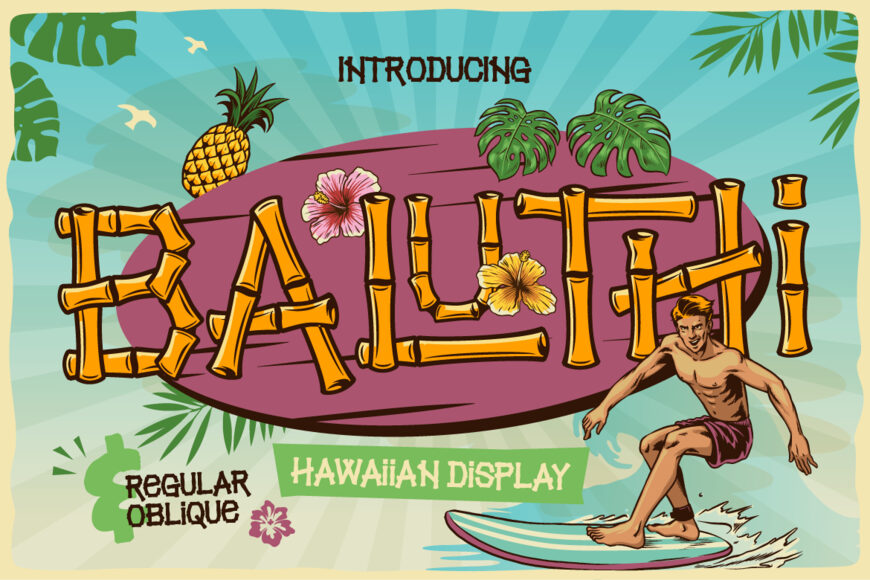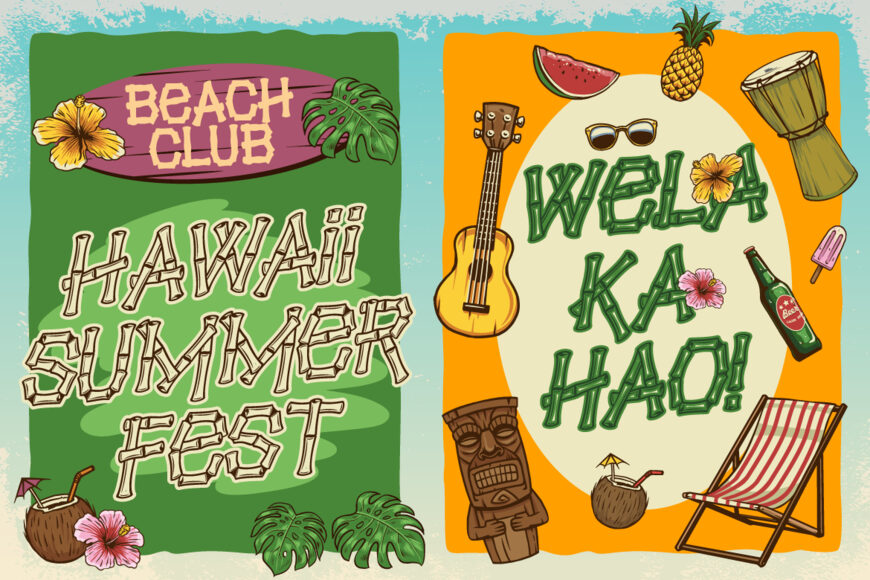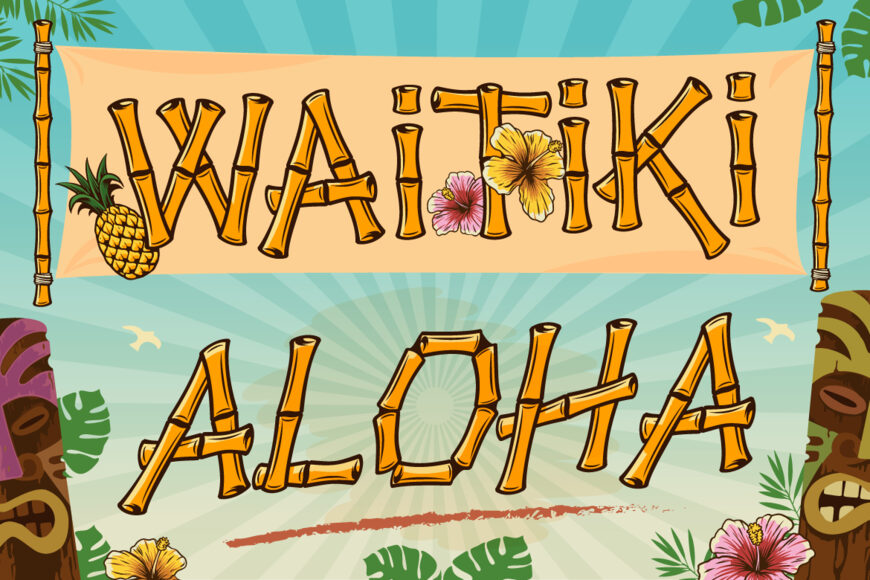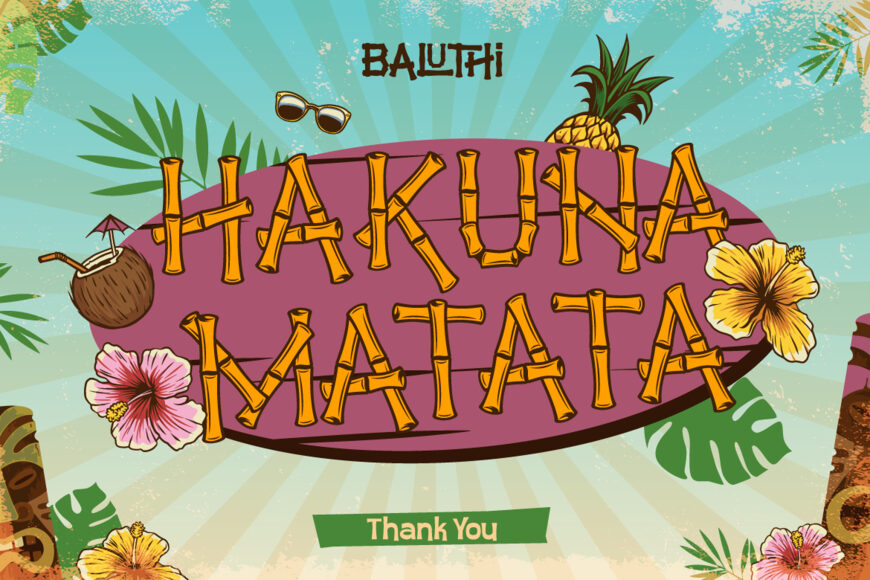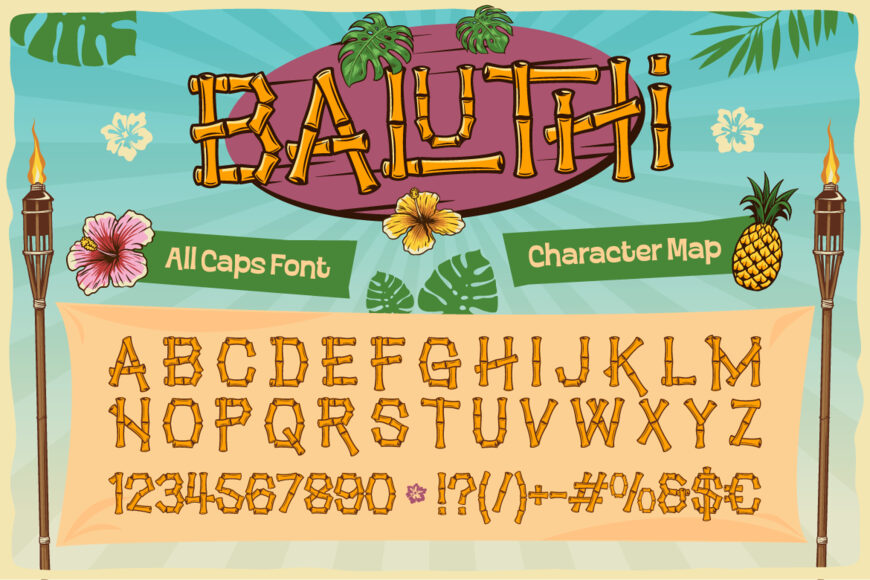
Baluthi Font
Turn up the tropical vibes with Baluthi, a fun and distinctive bamboo Hawaiian display font handcrafted by Artisan Font. Designed with realistic bamboo stalks, joint details, and authentic wooden textures, Baluthi brings instant island charm, tiki bar energy, and beachside nostalgia to your creative projects.
This all-caps display font comes equipped with two distinct styles—Regular and Oblique—giving you maximum flexibility to build dynamic, high-energy layout headlines.